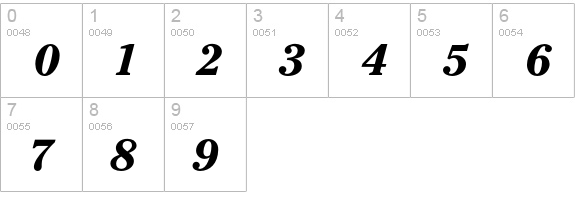
CheltenhamBoldItalic Font Details
CheltenhamBoldItalic is a stunning and sophisticated font that exudes elegance and style. Its bold and italic design adds a touch of flair and sophistication to any project or design. With its classic yet modern aesthetic, CheltenhamBoldItalic is perfect for making a statement and standing out from the crowd. The best part? CheltenhamBoldItalic is completely free to download at FontsMarket.com. Whether you're working on a branding project, website design, or any other creative endeavor, this font is a versatile and timeless choice that will elevate your work to the next level. Don't miss out on the opportunity to add this beautiful font to your collection today!